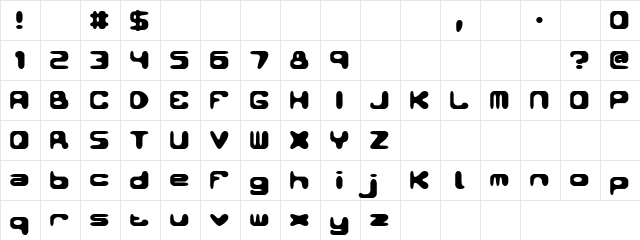
Luinettene Regular
Design Context for Luinettene Typeface
Luinettene is a composed and adaptable typeface that performs quietly and consistently across a wide range of design contexts.